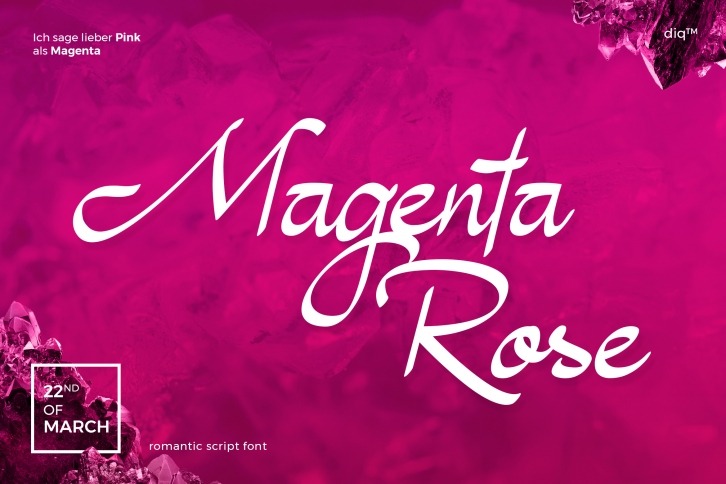
Magenta Rose is a trendy and unique font with an authentic style. It was designed by diqtam DRMWN and it's a great choice for creative people who need such a font. It was released on April 10, 2019 and the file size is 12.89 MB. Magenta Rose will add an organic vibe to any design idea!